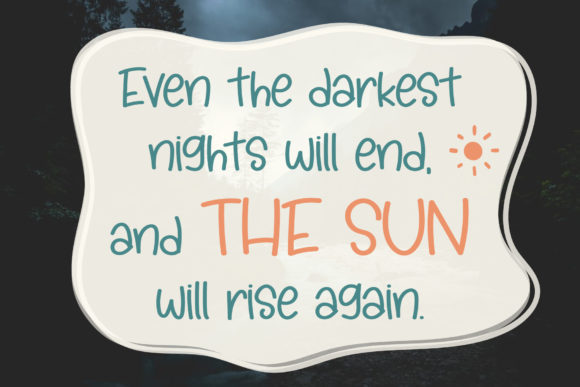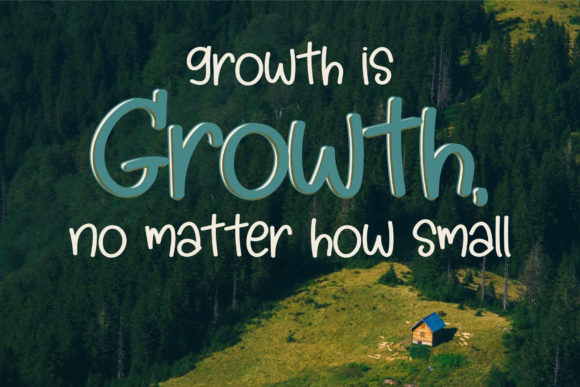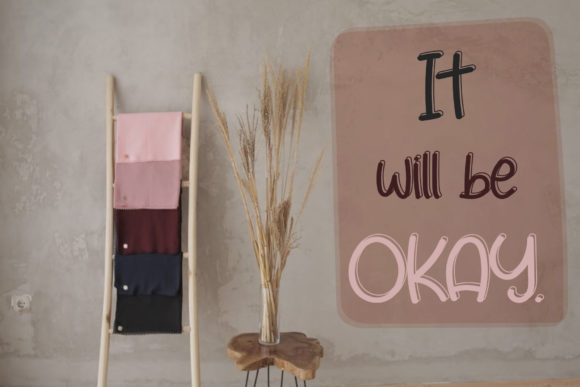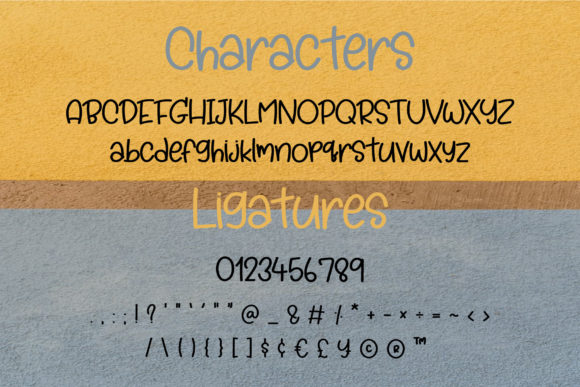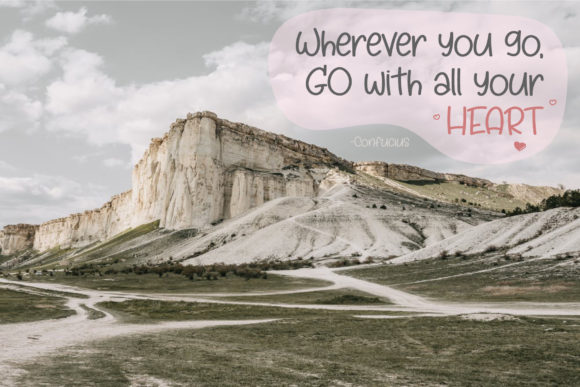
Introducing Amazed Font: A Whimsical Handwritten Font to Elevate Your Designs
Are you tired of using the same old fonts in your designs? Look no further than Amazed Font, a fun and quirky handwritten font that’s sure to add a touch of magic to your creations. With its modern yet whimsical style, Amazed Font is the perfect choice for designers and crafters looking to make their designs stand out from the crowd.
A Modern yet Whimsical Style
Amazed Font boasts a unique blend of modern and whimsical elements, making it an ideal choice for a wide range of design projects. Its handwritten style gives it a personal and approachable feel, while its clean lines and precise lettering ensure that it remains highly legible. Whether you’re designing a logo, creating a social media graphic, or crafting a handmade card, Amazed Font is sure to add a touch of personality to your work.
Immerse Your Designs in a Magical World
With Amazed Font, you can transport your designs to a magical world of wonder and enchantment. Its quirky and playful style is sure to delight audiences of all ages, making it perfect for designs aimed at children, families, or anyone looking for a touch of whimsy. From fairy tale-inspired illustrations to fantastical creatures and magical landscapes, Amazed Font is the perfect choice for any design project that requires a dash of imagination and creativity.
Amazed Font is a versatile font that’s perfect for a wide range of design applications, including:
- Logo design: Create a unique and memorable logo that stands out from the crowd with Amazed Font.
- Social media graphics: Add a touch of personality to your social media posts and stories with this fun and quirky font.
- Handmade crafts: Use Amazed Font to add a personal touch to your handmade cards, gift tags, and other crafts.
- Illustrations: Bring your illustrations to life with Amazed Font’s whimsical and playful style.
Key Features of Amazed Font
Here are just a few of the key features that make Amazed Font so special:
- Handwritten style: Gives your designs a personal and approachable feel.
- Modern yet whimsical: Combines clean lines and precise lettering with a playful and quirky style.
- Highly legible: Ensures that your designs are easy to read and understand.
- Versatile: Perfect for a wide range of design applications, from logos and social media graphics to handmade crafts and illustrations.
Get Ready to be Amazed!
If you’re looking for a font that will add a touch of magic to your designs, look no further than Amazed Font. With its unique blend of modern and whimsical elements, this fun and quirky handwritten font is sure to elevate your designs to the next level. So why wait? Download Amazed Font today and get ready to be amazed!
In conclusion, Amazed Font is a fun and quirky handwritten font that’s perfect for designers and crafters looking to add a touch of magic to their designs. With its modern yet whimsical style, highly legible lettering, and versatile design applications, Amazed Font is sure to become a favorite in your font collection. So why wait? Download Amazed Font today and start creating your own magical designs!